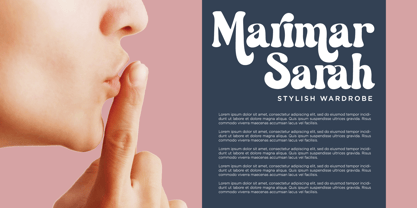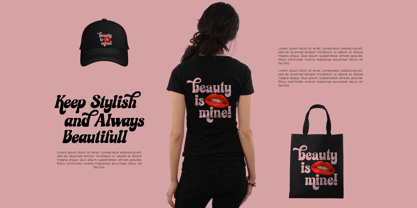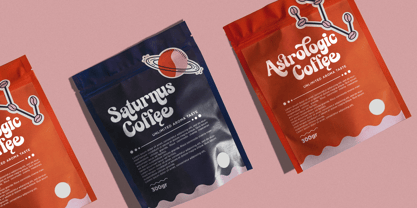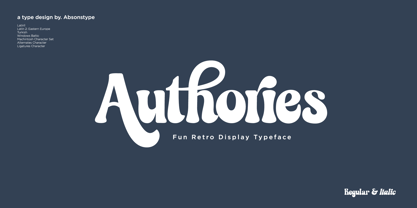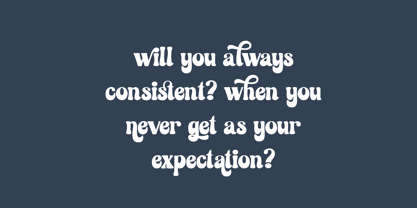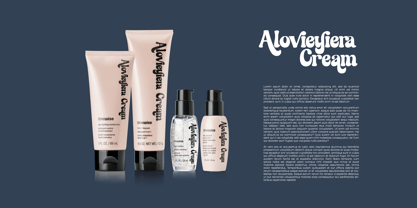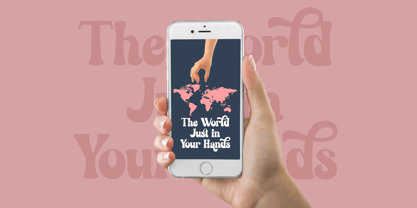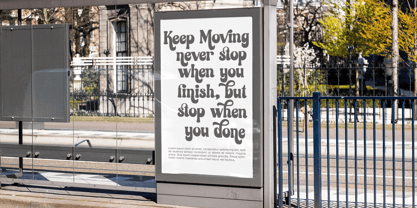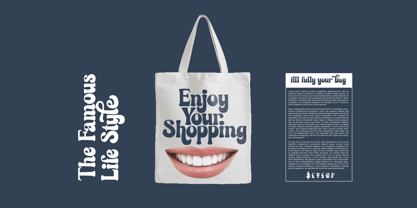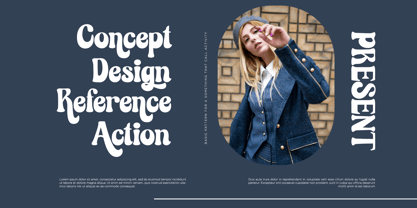
Authories
by Absonstype
The Authories Font Family was designed by Sarwo Edhi Prayitno, Edhi Prayitno and published by Absonstype. Authories contains 2 styles and family package options.
Authories FONT A hand-drawn, bubbly serif font with a groovy look!
You can use these three fonts to create your own retro quotes and words!
Font Features :
• Regular and Italic Version
• Character set A-Z in uppercase and lowercase
• Numerals & Punctuation
• Accented Characters
• Multiple Languages Supported
Authories is perfect for: shirts, retro designs, procreate, stickers, logos, branding, greeting cards, Cricut projects, posters, magazines, social media, prints and more!
Designers: Sarwo Edhi Prayitno, Edhi Prayitno
Publisher: Absonstype
Foundry: Absonstype